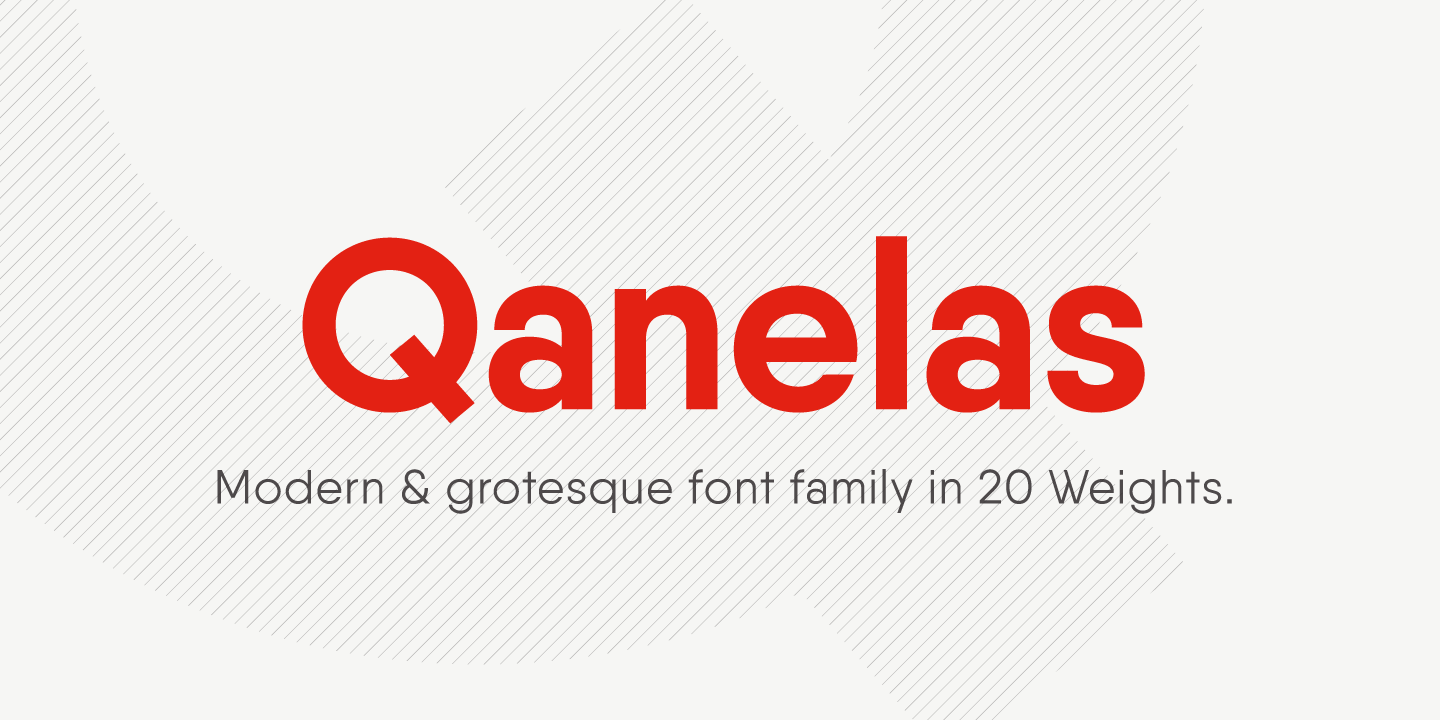
Qanelas Font is perfect for modern tech startups, innovative software interfaces, contemporary corporate branding, digital product designs, progressive web platforms, cutting-edge mobile applications, forward-thinking business communications, sleek presentation materials, modern architectural firms, and dynamic digital marketing campaigns.
What makes Qanelas Font exciting is its contemporary sophistication and innovative clarity that embodies the essence of modern design with technological precision and forward-thinking elegance. This distinguished typeface captures the spirit of digital innovation with its clean character forms and progressive proportions that evoke streamlined user interfaces, minimalist architecture, and the kind of sophisticated simplicity that defines successful modern brands. The font's contemporary character creates an immediate impression of innovation and the kind of design intelligence that resonates with tech-savvy audiences.
Qanelas Font family includes regular weight with precisely crafted character designs featuring modern proportions and contemporary styling. The typeface maintains exceptional readability while showcasing its distinctive innovative personality through cleanly designed letterforms that reflect the systematic thinking and aesthetic refinement that characterizes excellent contemporary design.
Digital design professionals consistently select Qanelas Font Free Download for projects requiring authentic modern appeal and technological credibility. This remarkable typeface brings the clarity of contemporary design to brand communications, combining innovative aesthetics with functional excellence to create memorable digital experiences. The precisely designed characters ensure professional positioning across all applications, making it essential for tech companies, design agencies, and any organization seeking to communicate the progressive innovation and contemporary sophistication that defines successful modern brands through Qanelas Font Free Download.